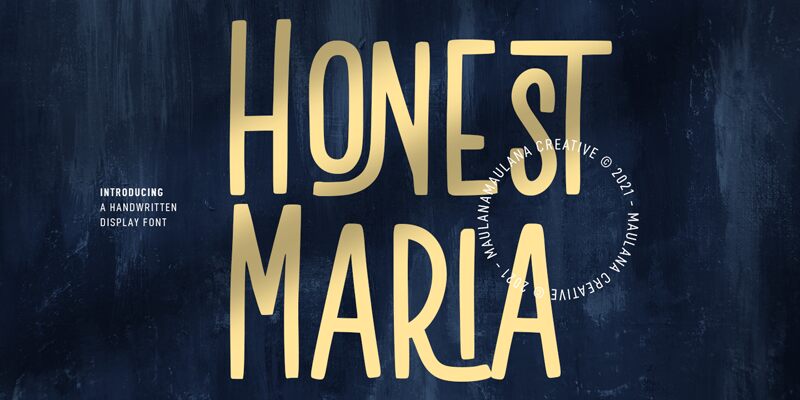
Honest Maria is a narrow, light handwritten font by Maulana Creative. Suitable for projects ranging from elegant wedding invitations to creative DIY crafts and artwork, Honest Maria will add an artistic touch to any design.
Honest Maria